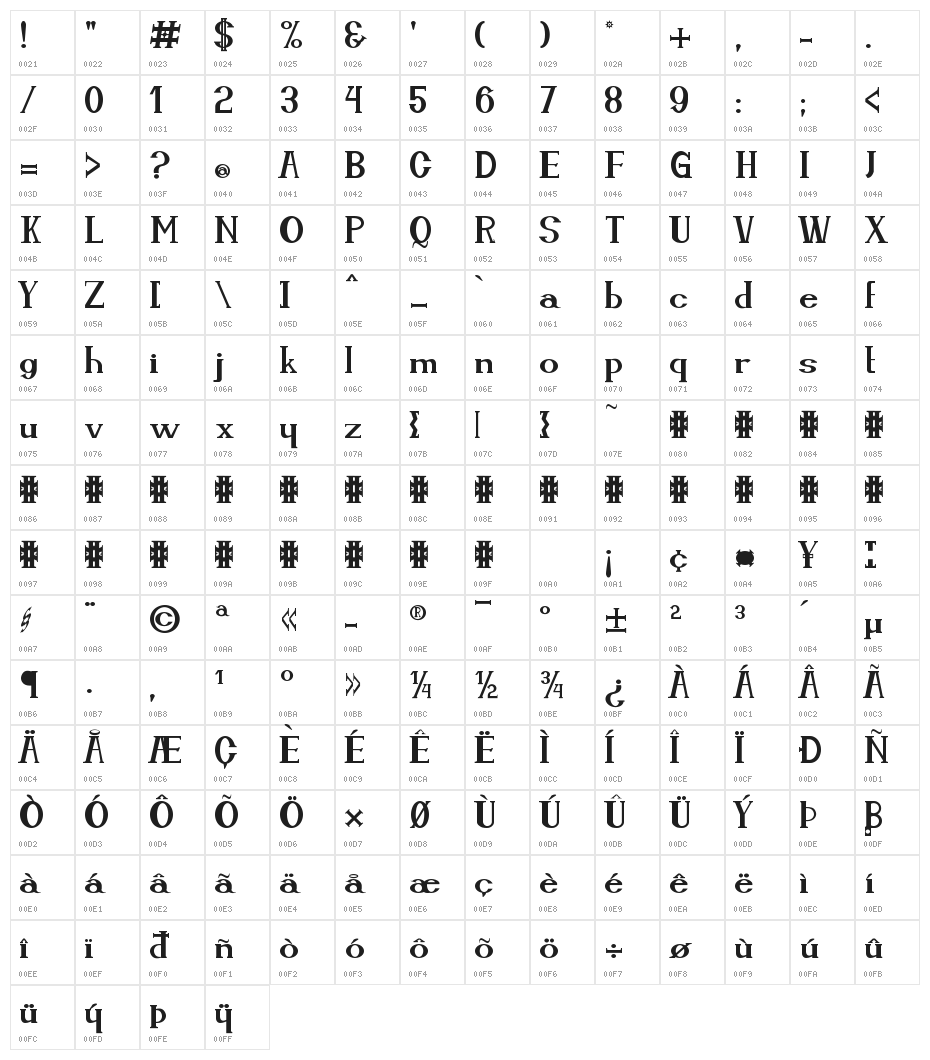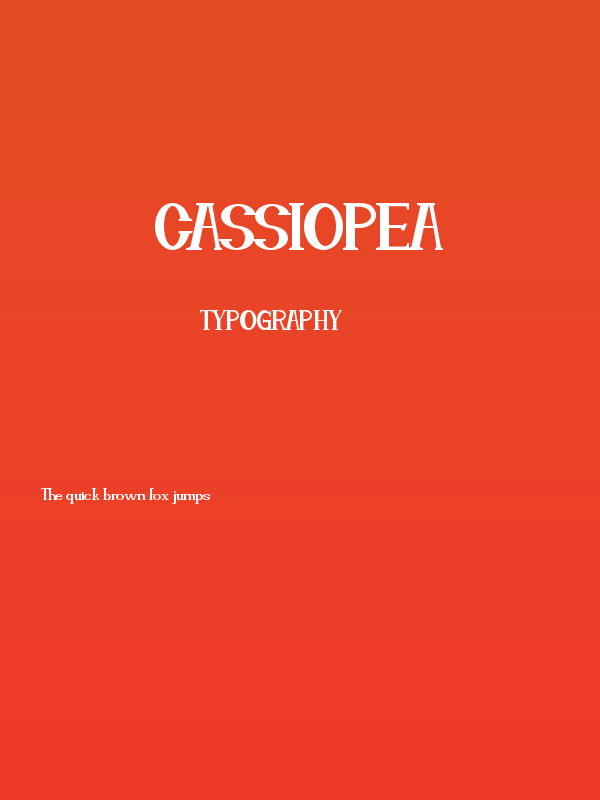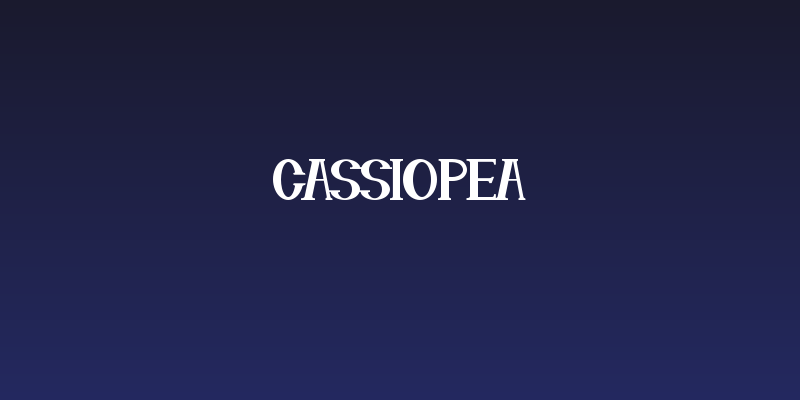
Cassiopea Font
Cassiopea Description
This font exhibits a bold and dramatic serif style with high contrast between thick and thin strokes. The uppercase letters are characterized by sharp, angular serifs and a strong vertical emphasis, giving them a commanding presence. The lowercase letters maintain a consistent style, with rounded forms and distinctive serifs that enhance readability. Numbers are bold and clear, making them suitable for impactful displays. Special characters are designed with the same attention to detail, ensuring a cohesive look across all glyphs. The overall design is both classic and modern, making it versatile for various applications.
| Overall Style | Modern Classic |
| Use Case | Headlines, Branding, Editorial Design |
| Proposed Projects | Ideal for editorial design, book covers, branding, and headlines that require a strong visual impact. |